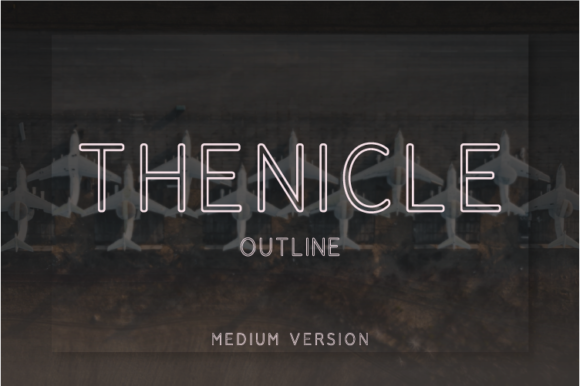
**Introducing Thenicle Outline Medium Font: A Timeless Masterpiece for Discerning Designers**
Immerse yourself in the captivating world of typography with Thenicle Outline Medium Font, a meticulously crafted sans serif masterpiece. Its graceful curves and sophisticated lines exude an air of refinement and elegance that will leave an unforgettable impression on your designs.
Crafted by the renowned Nan Design, Thenicle boasts a distinctive character that sets it apart from the ordinary. Its modern and fancy characters dance across the page with a playful charm, making it an ideal choice for logos, branding, packaging design, and any other project that demands a touch of allure.
Whether you're a seasoned designer or just starting your typographic journey, Thenicle Outline Medium Font is an indispensable tool that will empower you to create designs that captivate and inspire. Its versatility knows no bounds, transforming ordinary projects into extraordinary works of art.
With its timeless appeal and endless creative possibilities, Thenicle Outline Medium Font is a true must-have for any designer seeking to elevate their work to new heights. Embrace the beauty of typography with this exquisite font and watch your designs flourish with an unparalleled elegance.